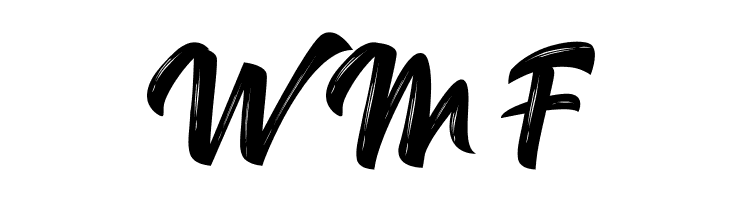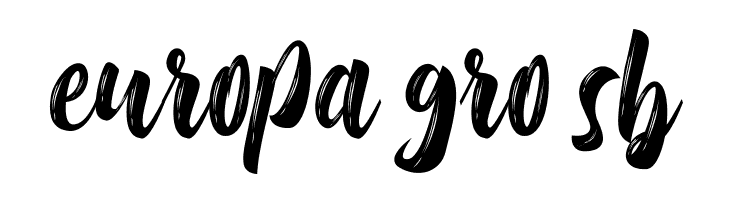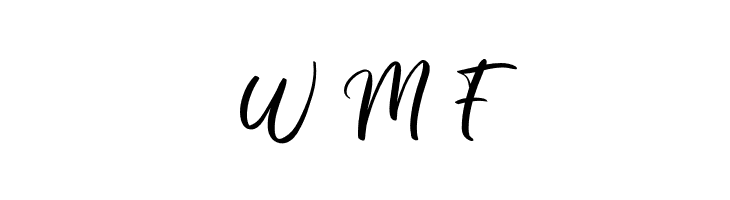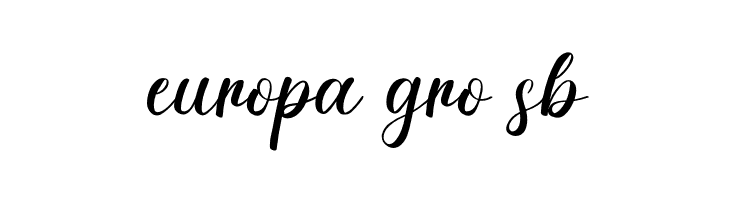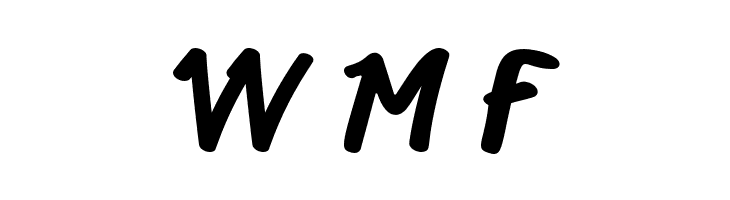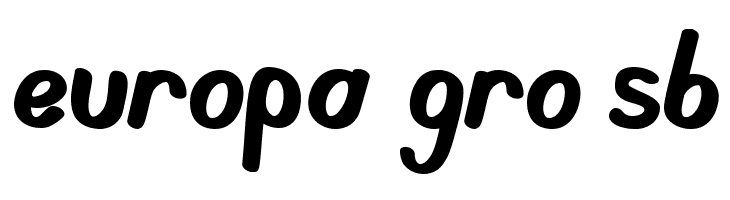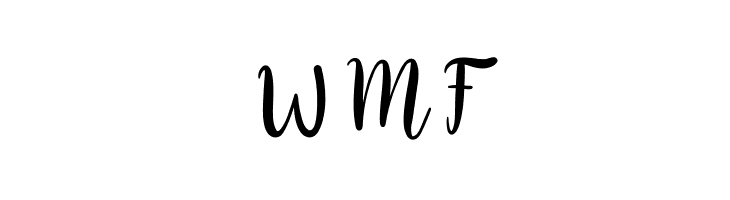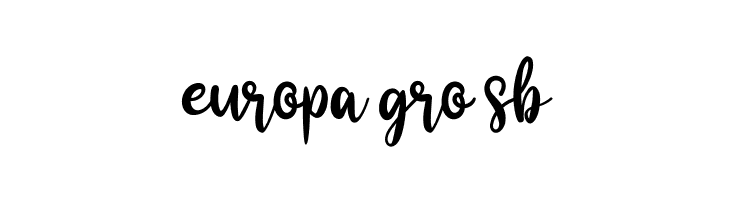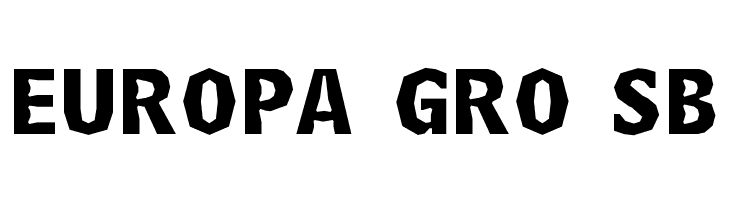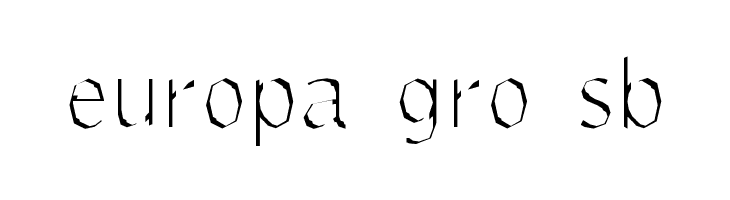
A graceful and elegant script font with flowing, cursive characters.
A playful, handwritten font with smooth, flowing lines and a casual style.
A bold, brush-style script font with dynamic, fluid strokes.
A playful and elegant handwritten script font with bold, flowing characters.
A flowing, cursive font with elegant, interconnected strokes.
A bold, playful handwritten font with rounded strokes and a dynamic slant.
A playful, handwritten font with thin, irregular strokes.